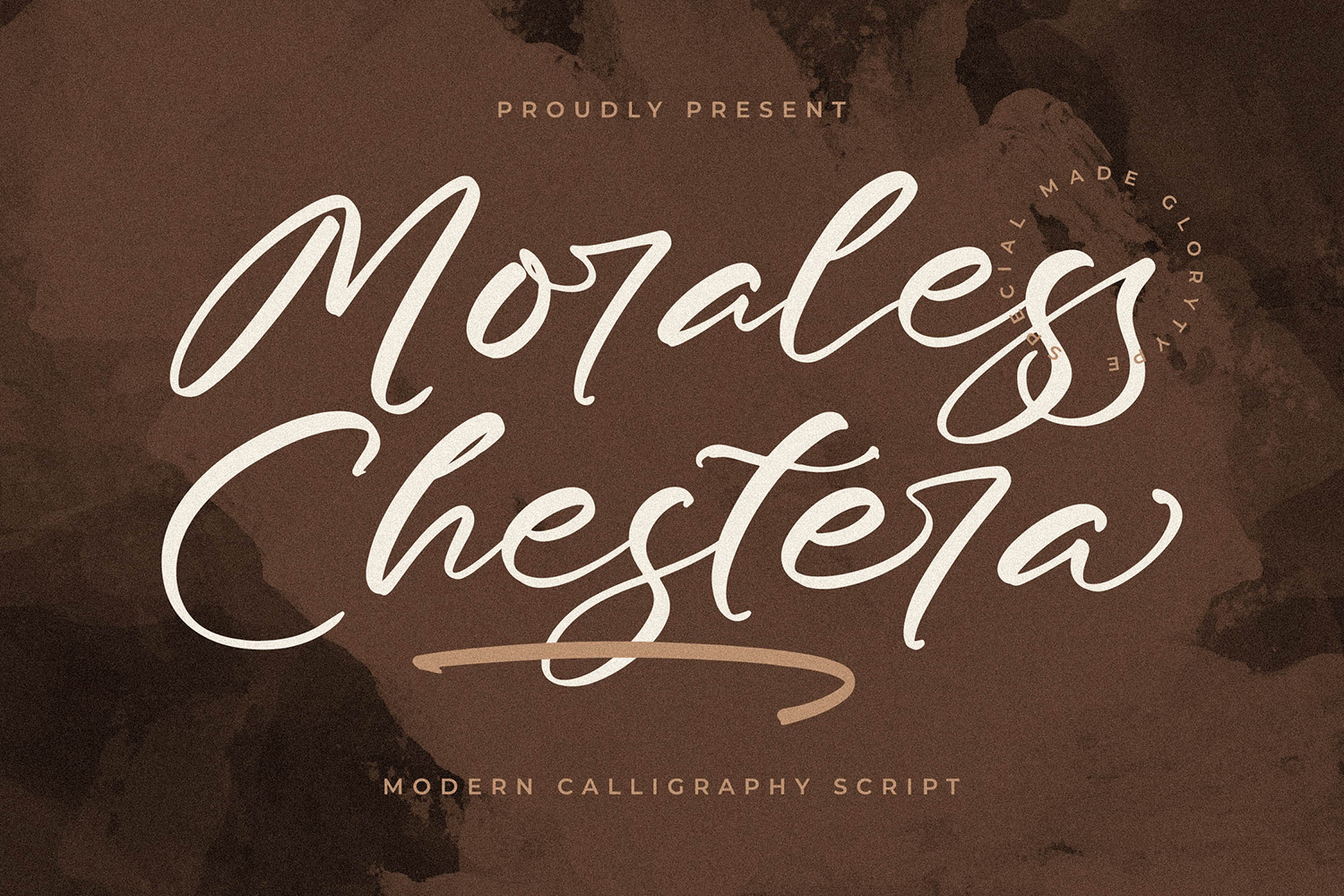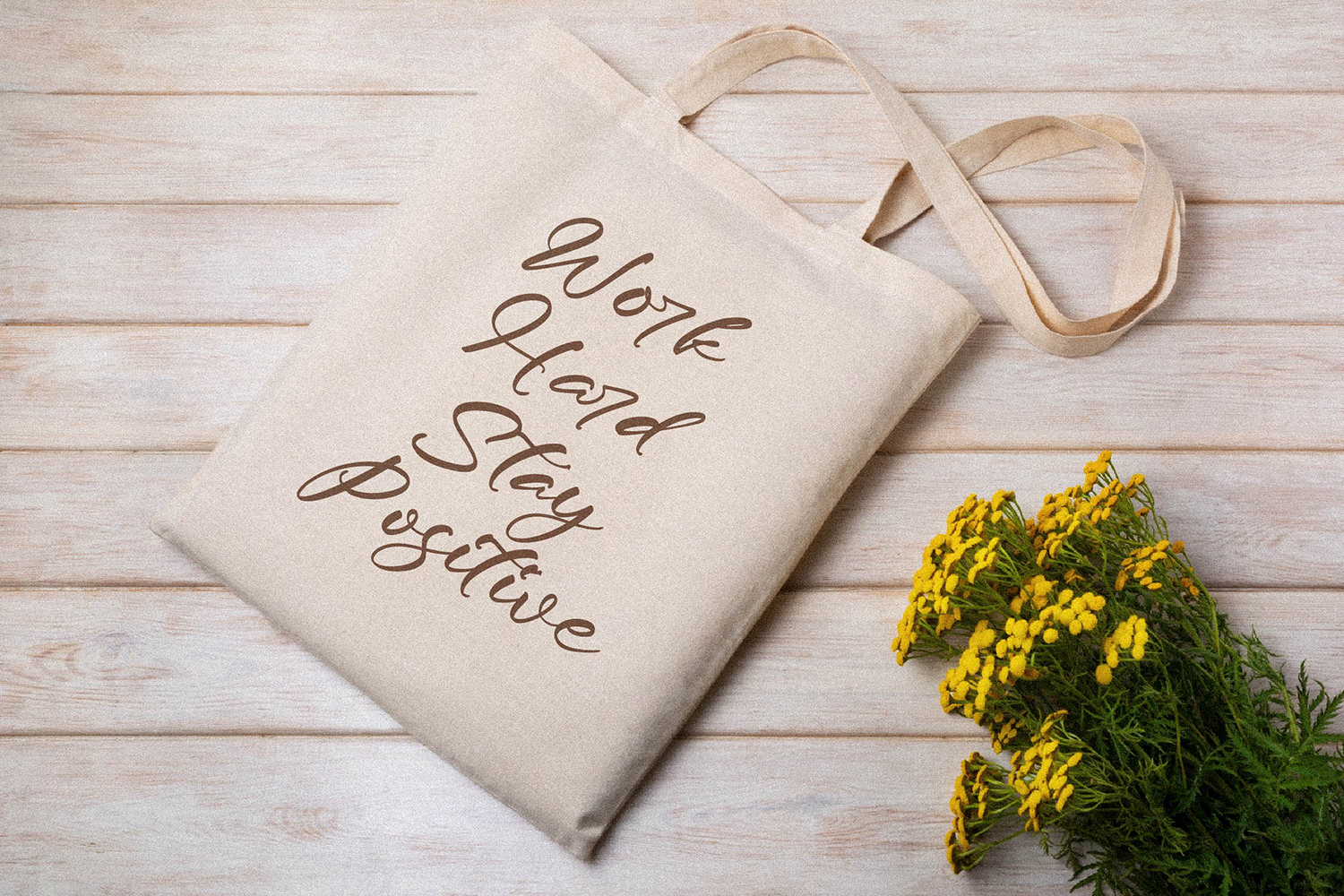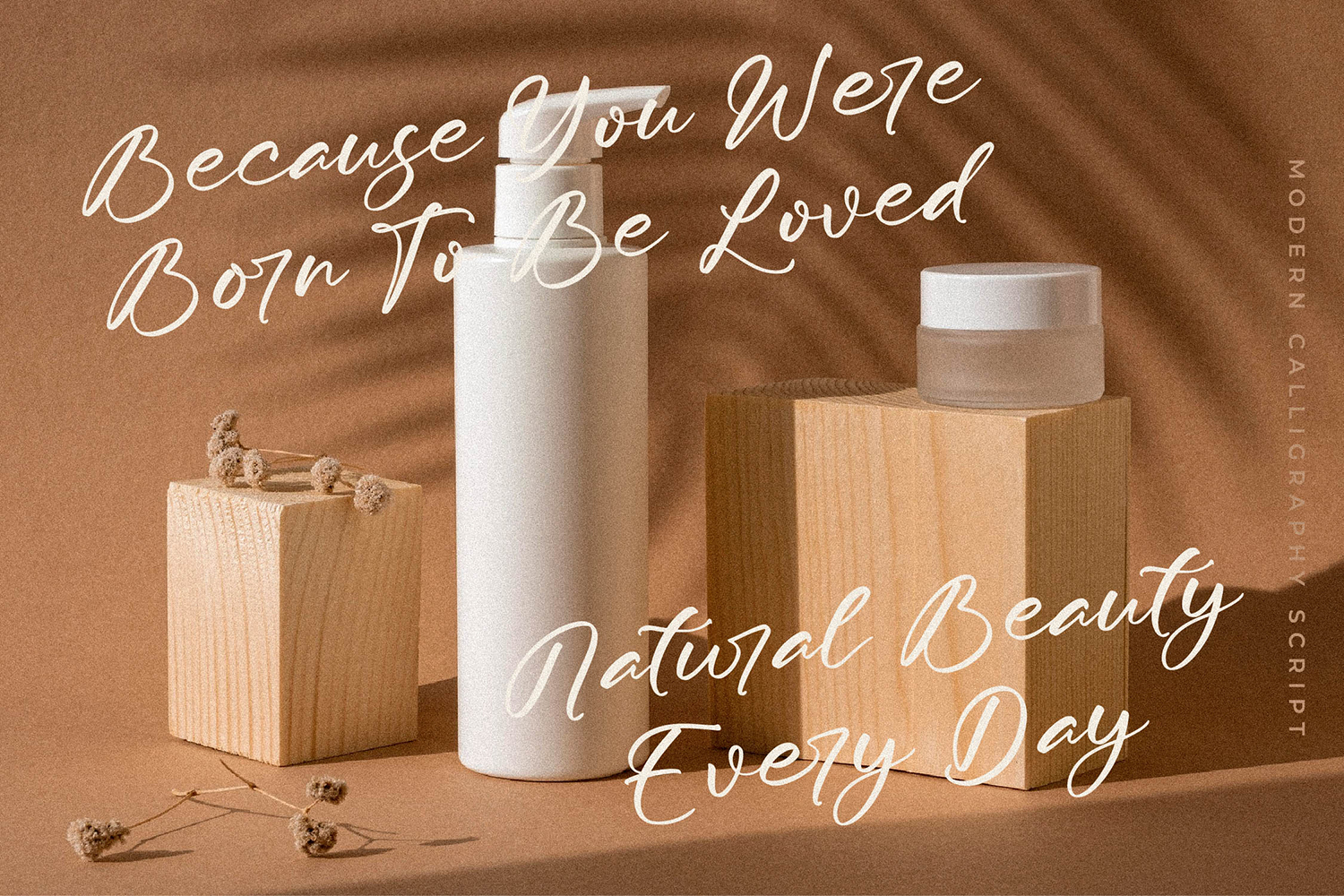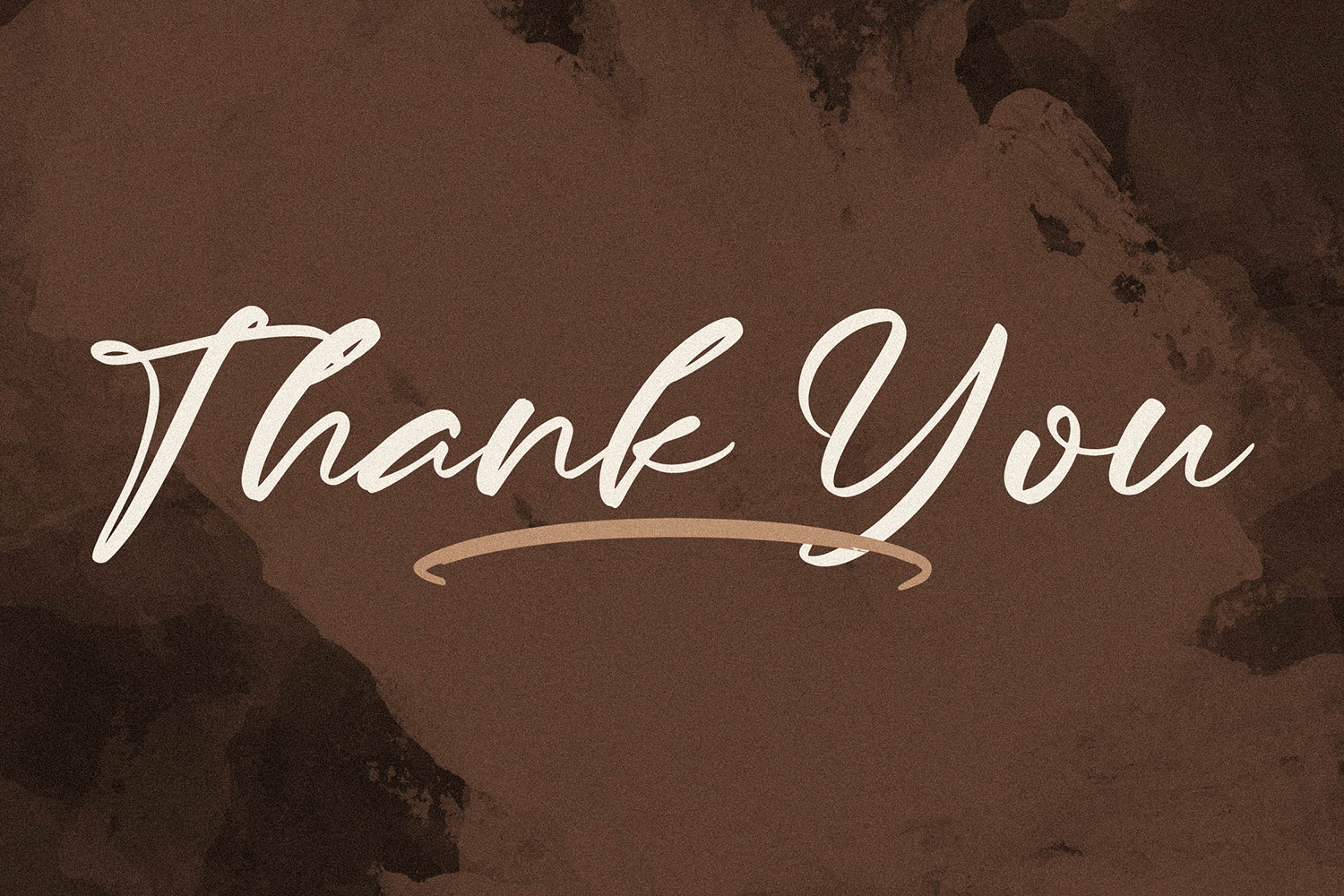
Moraless Chestera Free Font
Introducing Moraless Chestera Free Font – an elegant and modern calligraphy script font, designed to elevate a multitude of projects. From logos and branding ventures to homeware designs, product packaging, mugs, quotes, posters, shopping bags, t-shirts, book covers, name cards, invitation cards, greeting cards, labels, photography, watermarking, special events, and all your other delightful creations requiring a touch of beautiful script, Moraless Chestera is the perfect choice. Embrace the exquisite script taste of this font and let it enhance your projects with its captivating charm. Don’t miss the chance to make Moraless Chestera an indispensable asset in your design arsenal. This free typeface was designed by a talented Glorytype Studio. If you like it don’t forget to check out the full version.